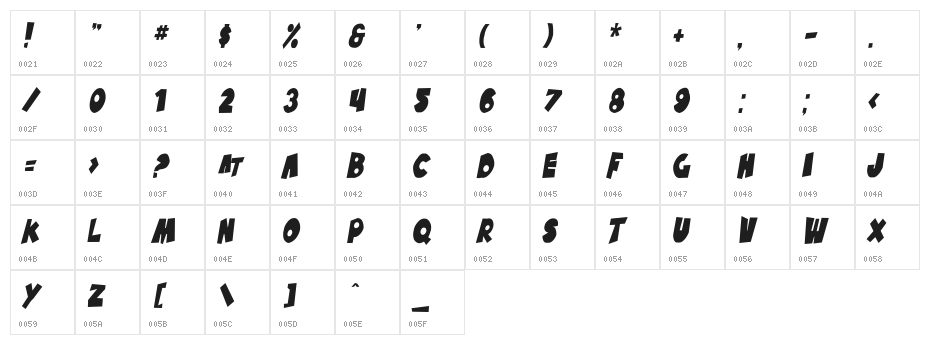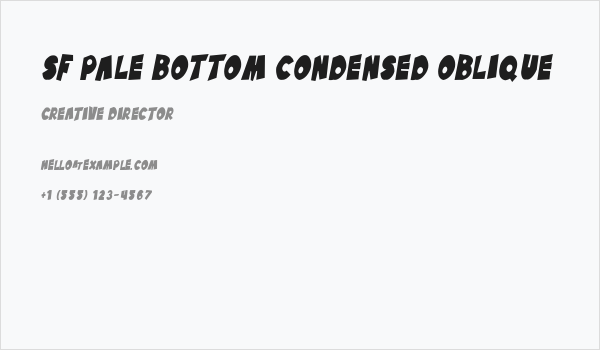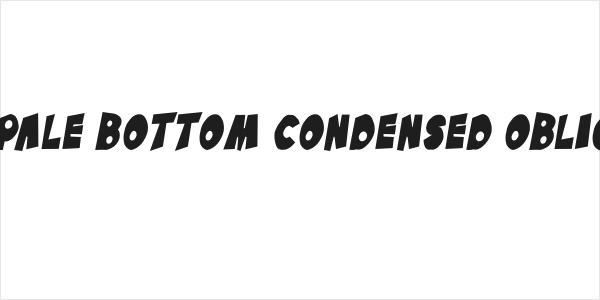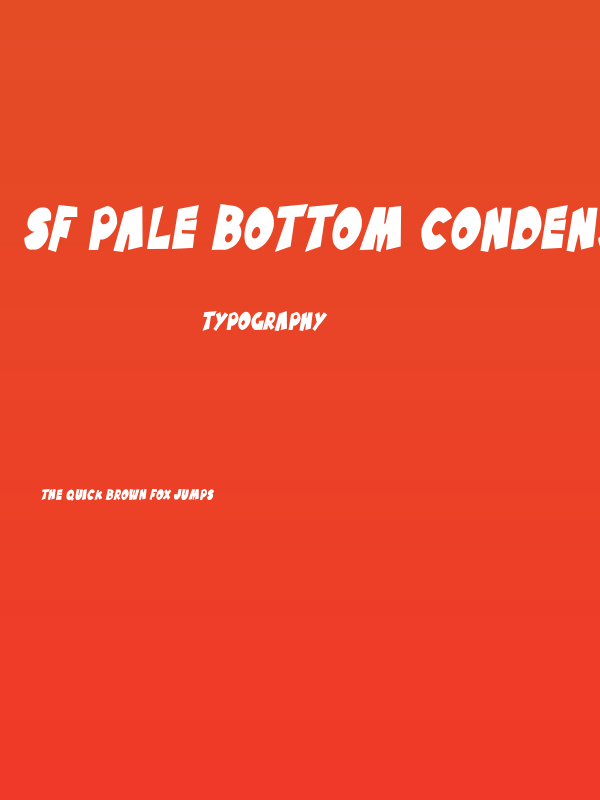
SF Pale Bottom Condensed Oblique Font
SF Pale Bottom Condensed Oblique Description
This font features a bold and dynamic style with a condensed and oblique appearance. The characters are heavily stylized with sharp angles and a strong presence, making them stand out prominently. The uppercase letters are particularly striking, with a sense of movement and energy. The numbers and special characters maintain the same boldness and angularity, ensuring consistency across the font. This typeface is designed to capture attention and convey a sense of urgency or excitement.
| Proposed Projects | Ideal for posters, headlines, branding, and any design needing a bold statement. |